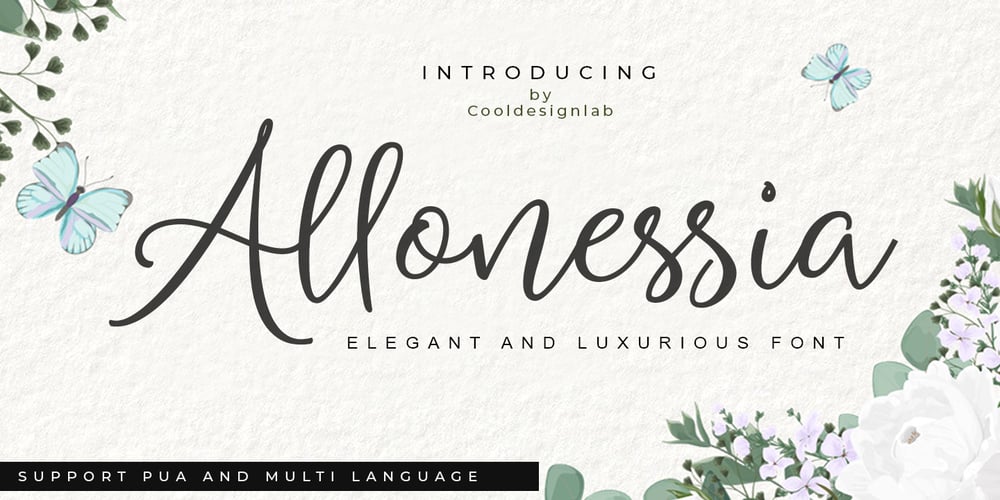
Allonessia
Allonessia font
Allonessia Font Family was designed by Kurniadi Saputra and published by Cooldesignlab. Allonessia contains 1 styles and family package options. Allonessia is an elegant and luxurious font. This font was created especially for those of you who need a beautiful touch to design your next project with perfect and stunning results. Such as titles, signatures, logos, correspondence, wedding invitations, letterheads, nameplates, labels, bulletins, posters, badges, Branding, Greeting Cards, etc. Great for invitations, as greeting cards, and more!!!Allonessia includes alternative glyphs and beautifully rendered fonts including set styles, ligatures, etc. The Open Type feature can be accessed using Smart Open Type programs such as Adobe Illustrator CS, Adobe Indesign & CorelDraw X6-X7 and Microsoft Word. And this font already provides unicode PUA (custom code font). so that all alternative characters can be easily accessed in full by craftsmen or designers.Thank you and love designing 🙂